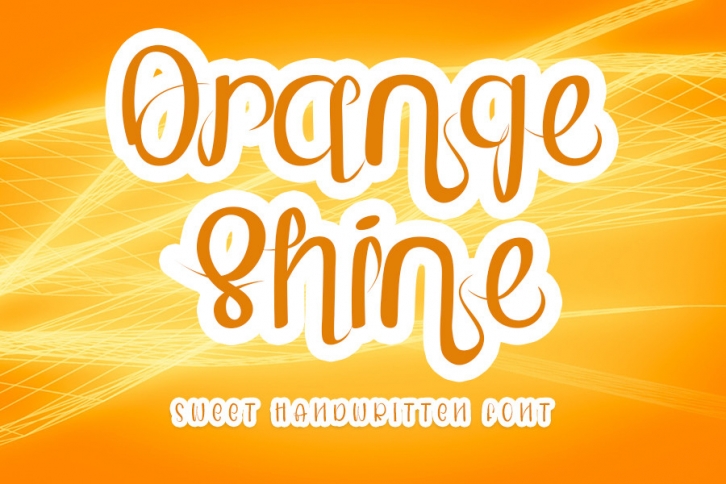
Orange Shine is a chic, refined script font that emanates sophistication and elegance. Its stylish alternates and ligatures make this font the perfect match for any project.